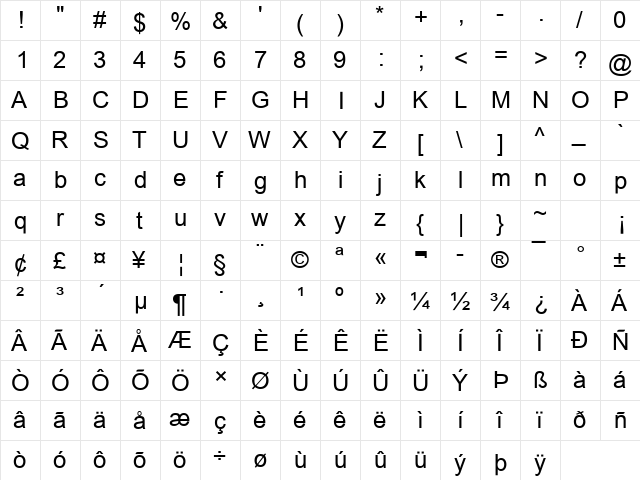
Garuda Book
Design Context for Garuda Typeface
Garuda offers clean, dependable letterforms without strong stylistic allegiance, making it a practical choice for designers who need flexibility.
Pro Tip: Use Garuda in both headline and body roles to test its range before committing to a single application.